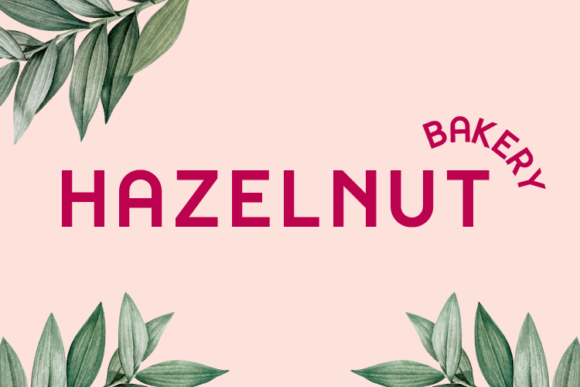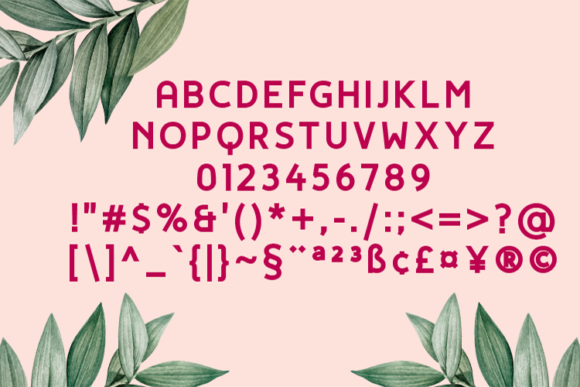
Introduction to Kwoto Black Font
Do you remember that moment when you’re brainstorming ideas for your next creative project and everything just comes together? The perfect combination of colors, typography, and design elements that makes your project stand out from the crowd? That’s exactly what the Kwoto Black Font can help you achieve.
As a valuable design resource, the Kwoto Black Font is a brand new sans serif font that’s ideal for branding and decorating any project. With its sleek and modern design, it’s perfect for logos, posters, book covers, and anything else you can think of. Whether you’re working on a free download or a high-quality design, the Kwoto Black Font is a must-have in your design arsenal.
Key Features of Kwoto Black Font
- High-quality design resource ideal for creative projects requiring a sleek, modern aesthetic.
- Features a transparent background, allowing for seamless integration with any background image or color, adding flexibility to your design.
- Designed to be highly legible, even at small font sizes, making it perfect for use in a variety of applications, from signage to digital interfaces.
- Resolution-independent, allowing for use in both print and digital designs without compromising quality.
- Perfect for designers and artists seeking a versatile and high-quality font to elevate their creative project.
Honest Review: Kwoto Black Font
I recently stumbled upon the Kwoto Black Font, and I must say it’s a fantastic design resource for any creative project. The first thing that caught my attention was its high quality and sleek design. The font is perfect for making a statement in your design, whether it’s for a logo, poster, or even a web design project.
Here are some of the things that work well with the Kwoto Black Font:
- ✨ Beautifully designed and highly legible
- ✨ Works well with a transparent background, making it perfect for web designs
- ⚠️ Limited font styles available (only a few options)
- ⚠️ May not be suitable for all types of designs, especially those requiring a more subtle look
Overall, I’m impressed with the Kwoto Black Font. It’s a great addition to any designer’s toolkit, and I would definitely recommend it to anyone looking for a high-quality, stylish font. Just keep in mind its limitations, and you’ll be all set for creating amazing designs.
To get the most out of Kwoto Black Font, use it with a transparent background to create a clean and modern look. Experiment with different font sizes and styles to add depth and visual interest to your design.
Kwoto Black Font is ideal for a variety of creative projects, including:
- Logo designs and branding materials
- Infographics and presentations
- Web design and digital marketing materials